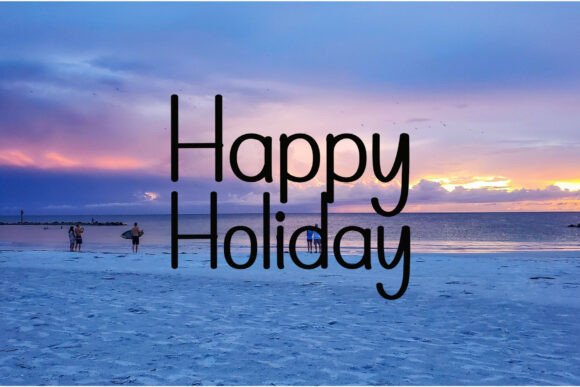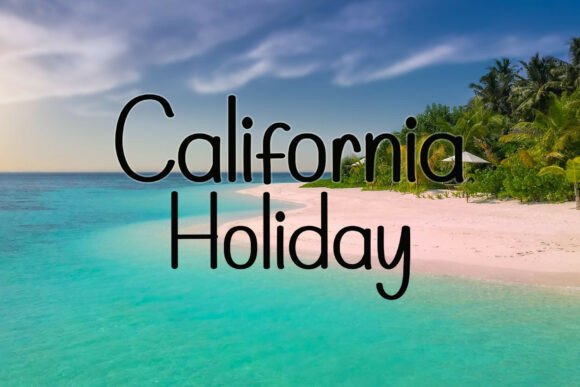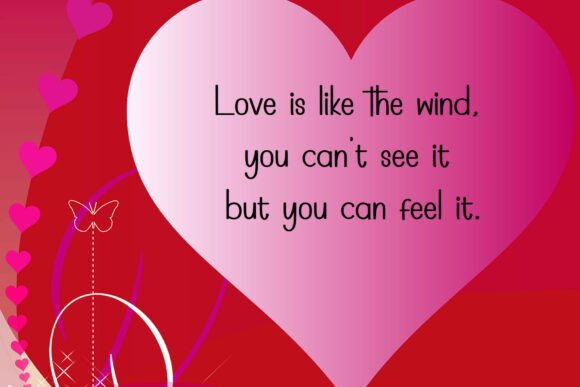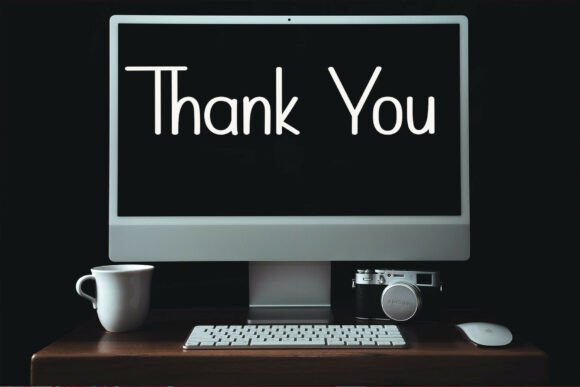
Introducing the Enchanting Christmas Star Font: Elevate Your Designs with Elegance
Are you searching for a font that embodies the magic of the holiday season? Look no further than the Christmas Star Font, a delicate, elegant, and flowing handwritten font that is sure to add a touch of sophistication to your designs. With its beautiful and well-balanced characters, this font is an excellent choice for a wide range of creative projects.
The Charm of Christmas Star Font
Christmas Star Font is a meticulously crafted font that exudes a sense of refinement and poise. Its flowing lines and delicate curves evoke the sparkle and shine of a star on a clear winter’s night. The font’s elegant appearance makes it an ideal choice for designers and crafters looking to add a touch of luxury to their work.
One of the standout features of Christmas Star Font is its versatility. Its well-balanced characters ensure that it pairs well with a wide range of designs, from traditional holiday-themed projects to more modern and abstract creations. Whether you’re working on a festive Christmas card, a holiday-themed website, or a seasonal craft project, this font is sure to make your design shine.
With Christmas Star Font, the creative possibilities are endless. Imagine adding a touch of elegance to your holiday cards, invitations, and gift tags. Envision using this beautiful font to create stunning seasonal posters, flyers, and brochures. The font’s flowing lines and delicate curves also make it an excellent choice for crafting beautiful journal pages, scrapbook layouts, and other paper crafting projects.
For web designers, Christmas Star Font is an excellent choice for creating festive holiday-themed websites, blogs, and social media graphics. Its elegant appearance is sure to add a touch of sophistication to any online design project.
Why Choose Christmas Star Font?
- Elegant and Refined: Christmas Star Font is a beautifully crafted font that adds a touch of elegance and sophistication to any design.
- Versatile: The font’s well-balanced characters ensure that it pairs well with a wide range of designs, from traditional to modern.
- Easy to Read: The font’s clear and flowing lines make it easy to read, even at small sizes.
- Perfect for Holiday Projects: Christmas Star Font is the perfect choice for holiday-themed design projects, from Christmas cards to seasonal posters and flyers.
Tips for Using Christmas Star Font
- Pair with Bold Fonts: Pair Christmas Star Font with bold, contrasting fonts to create visual interest and add depth to your design.
- Use for Headings and Titles: Use Christmas Star Font for headings and titles to add a touch of elegance and sophistication to your design.
In conclusion, Christmas Star Font is a beautiful and elegant handwritten font that is sure to add a touch of sophistication to your design projects. With its well-balanced characters, flowing lines, and delicate curves, this font is perfect for a wide range of creative projects, from holiday-themed designs to more modern and abstract creations. So why wait? Download Christmas Star Font today and start elevating your designs with elegance and style.